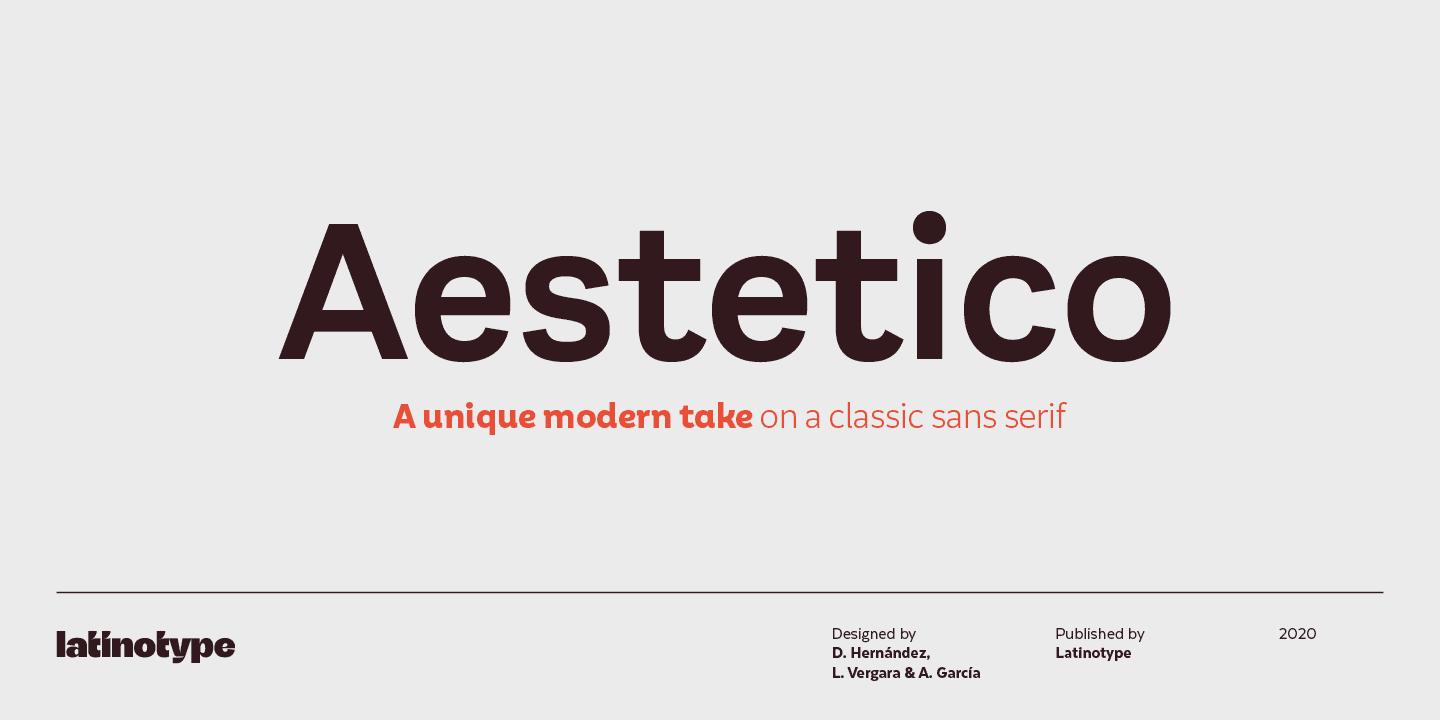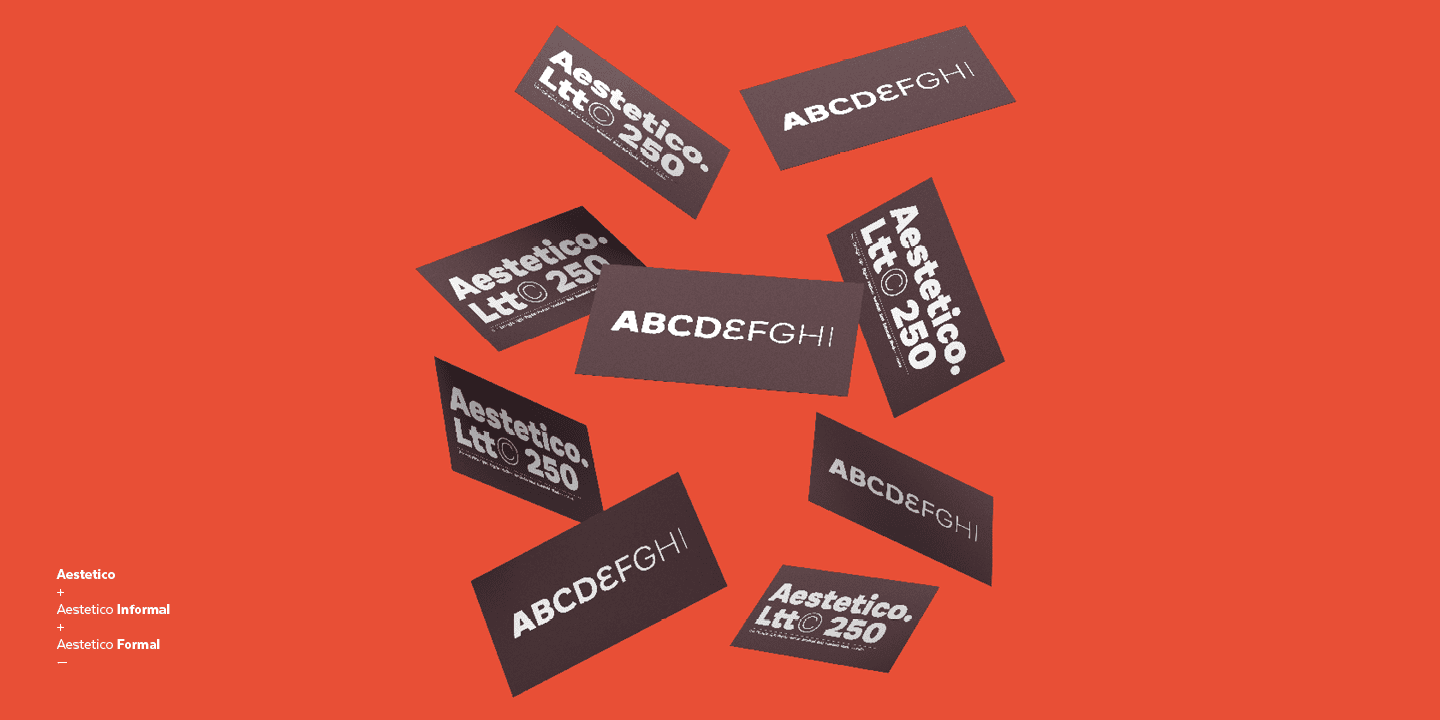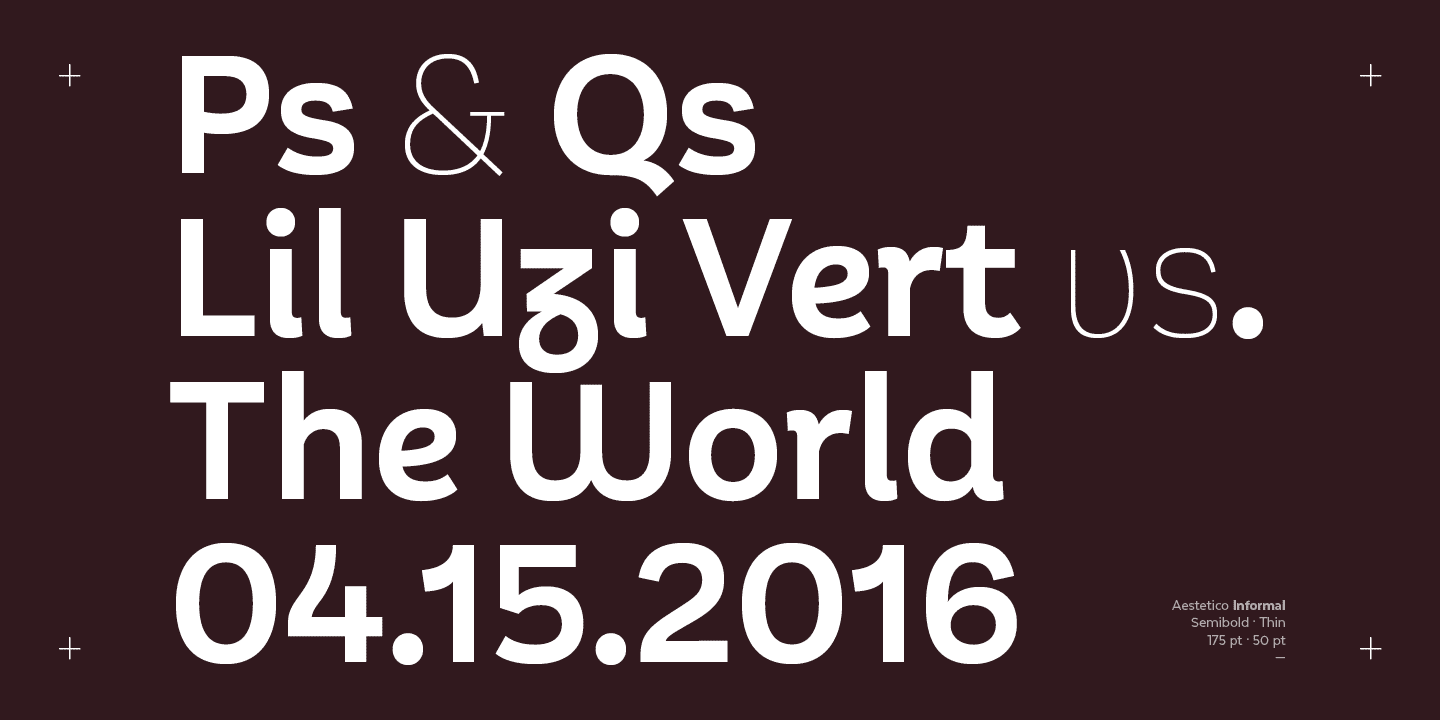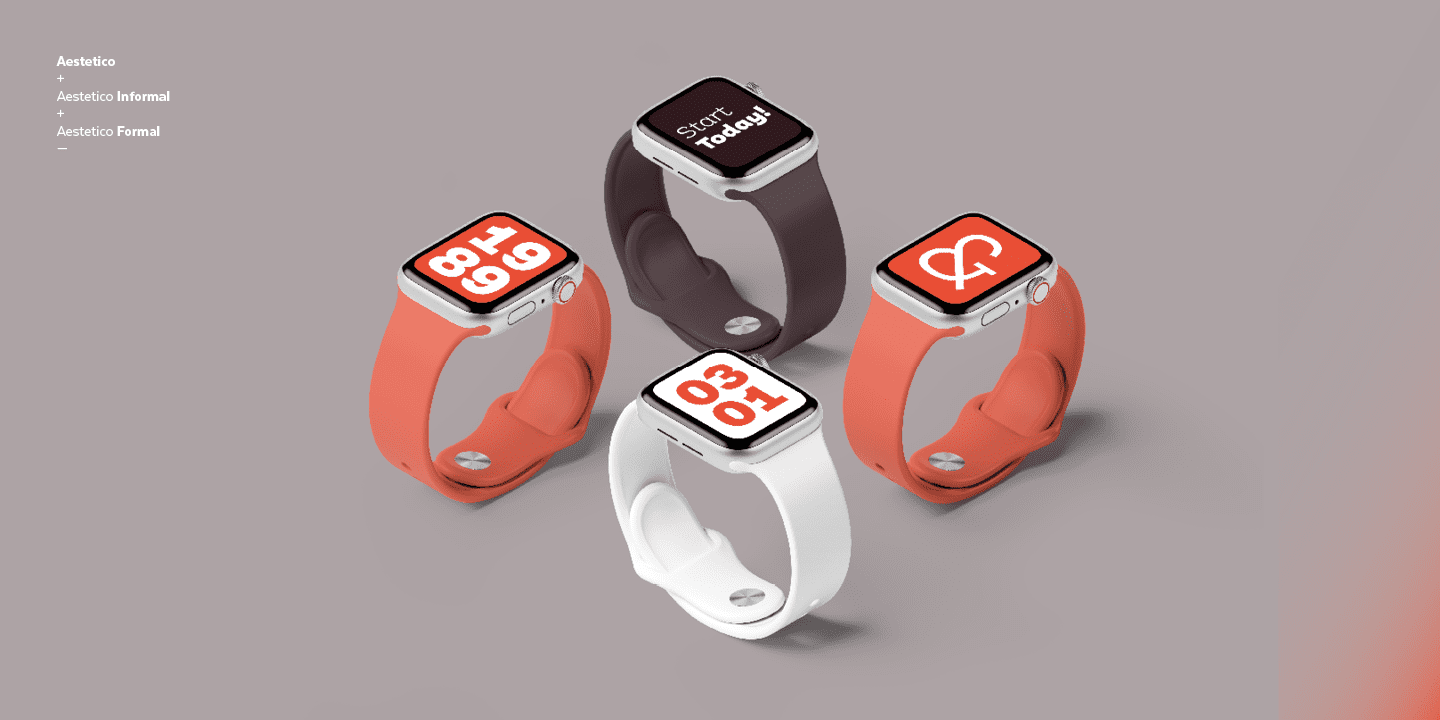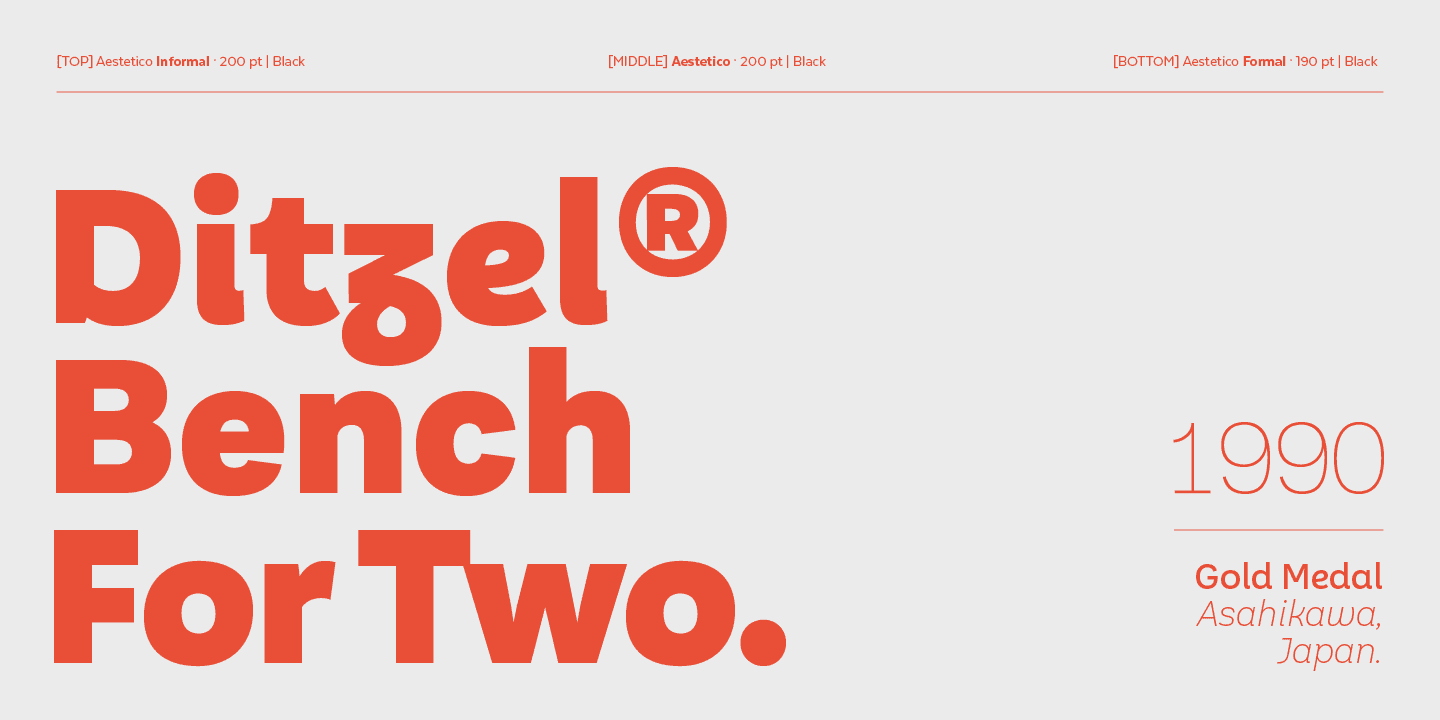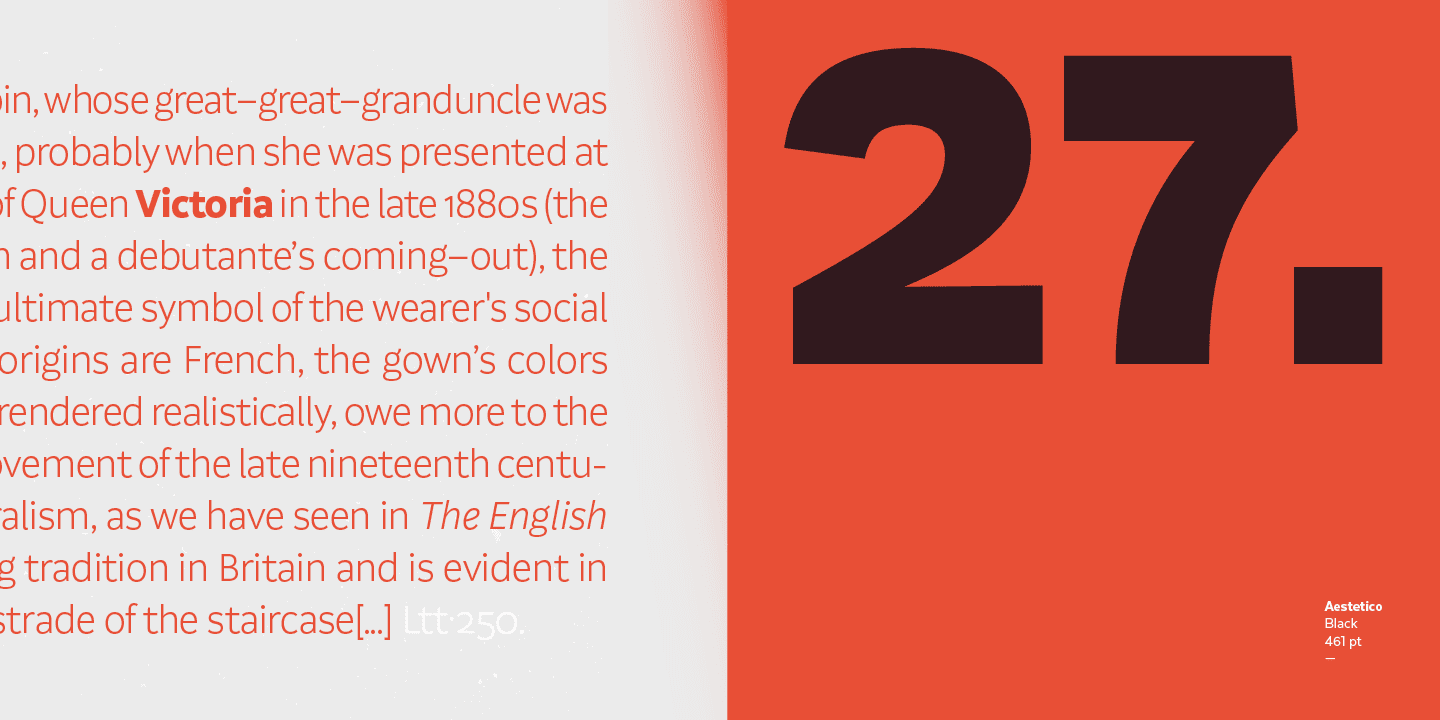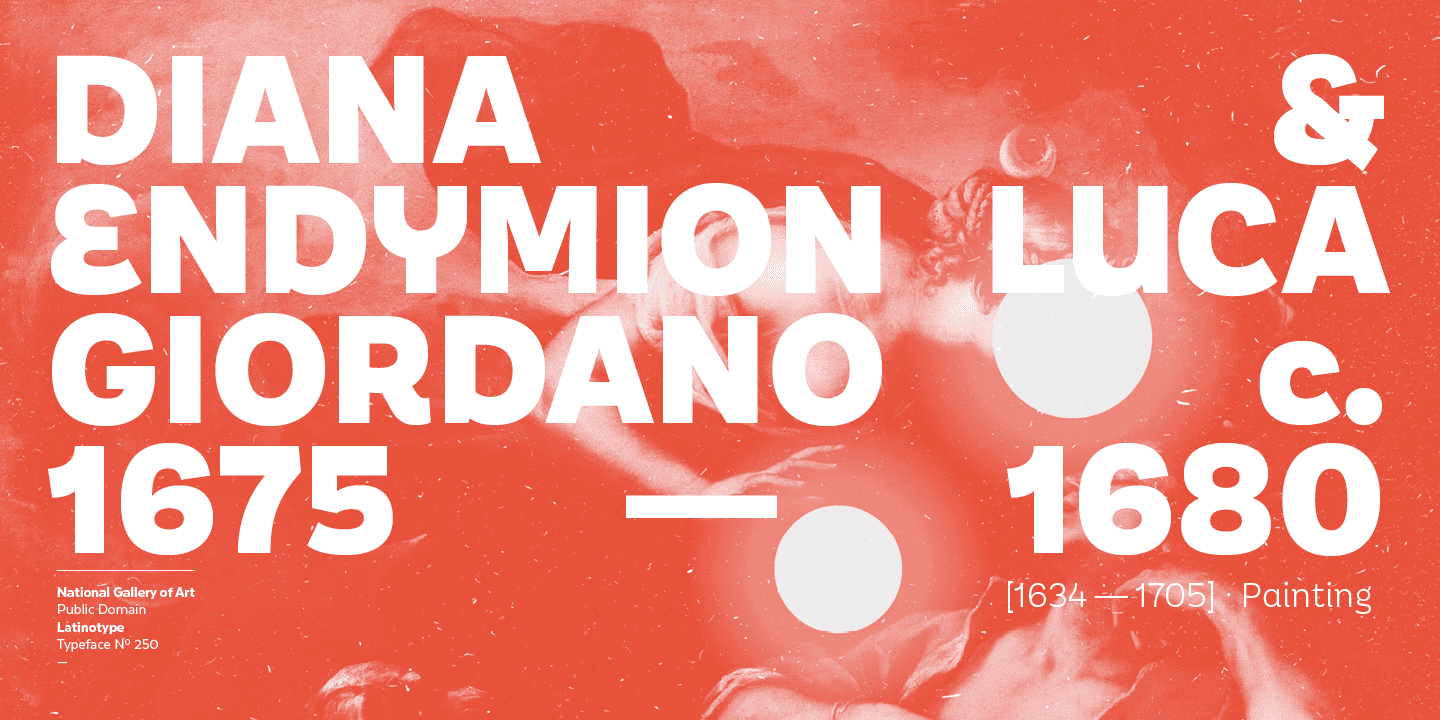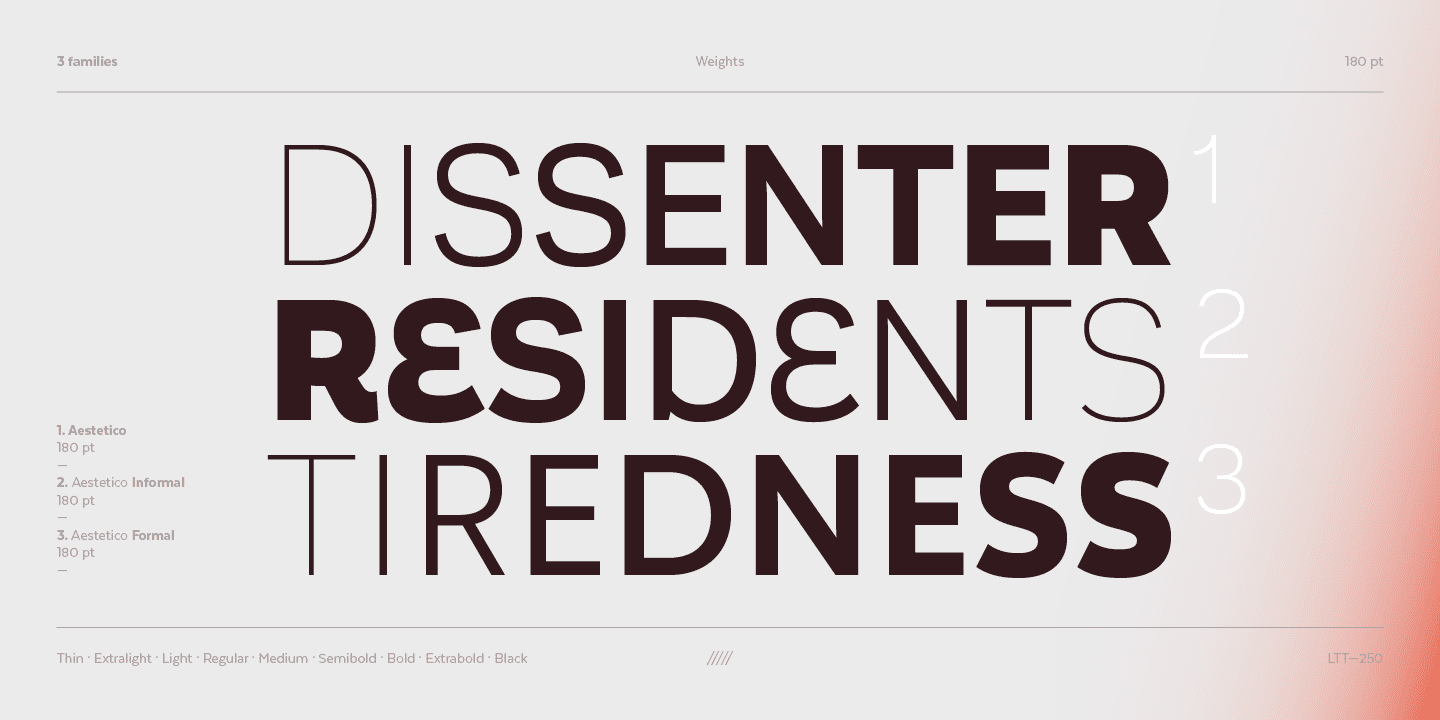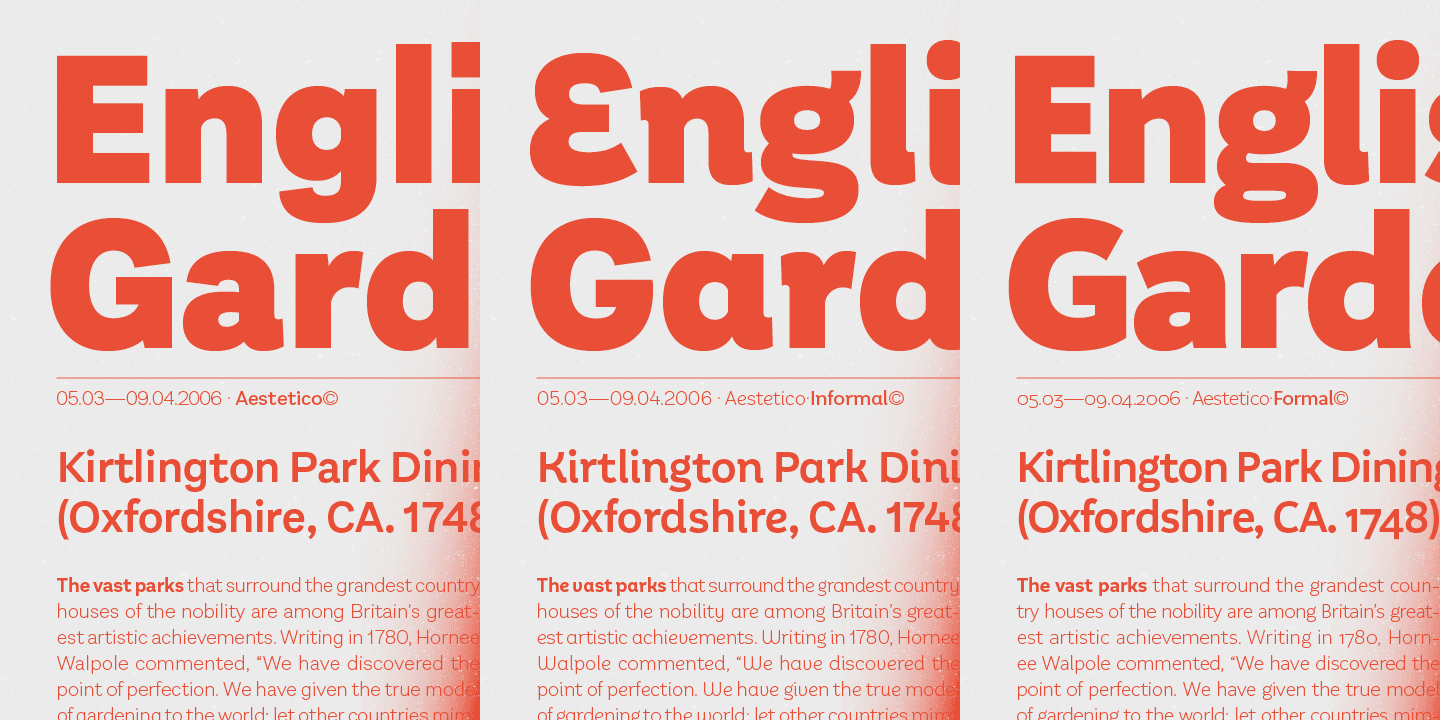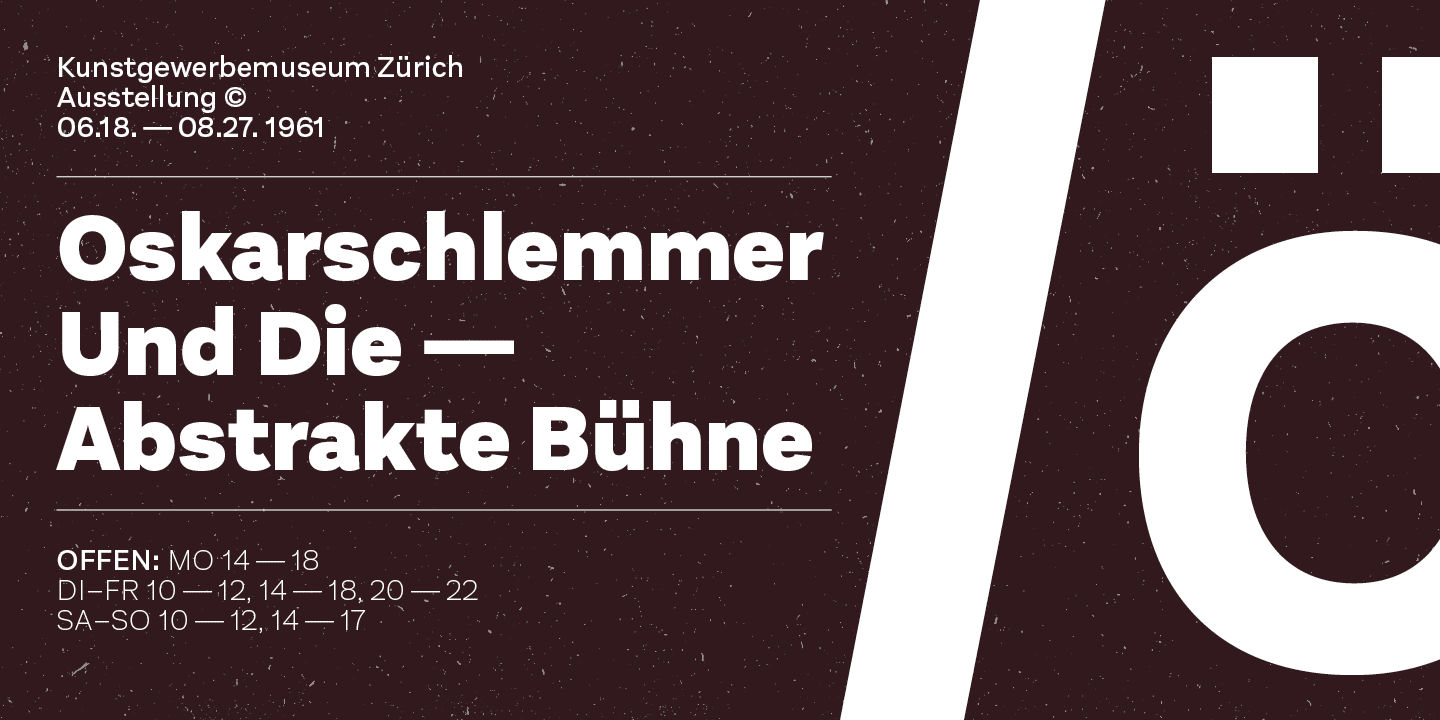
Aestetico Complete Family (54 fonts)
The 3 variants ensure every design project is covered by Aestetico; its versatile nature is perfect for a huge variety of applications from editorial design to branding, advertising, publications and digital.
As you would expect from Latinotype, this font comes with a standard character set (395 glyphs) and supports over 200 languages.